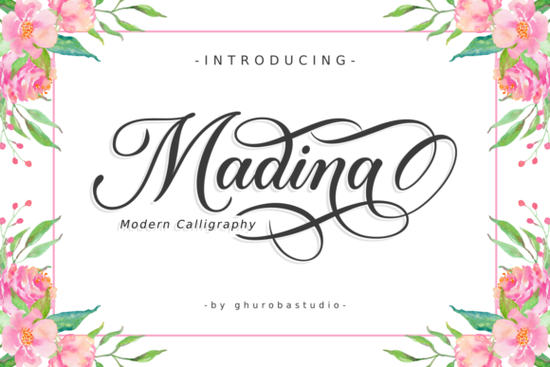
Finding the right typography for a delicate project can take hours of scrolling through endless options. When you need something that feels both magical and elegant without looking messy or illegible, the Madina Font is a highly reliable choice for your creative toolkit. It offers a beautiful handwritten touch that works perfectly for crafters, print-on-demand sellers, and small business owners looking to add a personal, authentic feel to their physical and digital products.
What makes a script font work for wedding and event stationery?
Wedding invitations, save-the-dates, and thank you cards require a delicate visual balance. The text needs to look formal but still feel warm and inviting to the guests. This typeface achieves that specific mood with a varying baseline and smooth, flowing lines. Instead of rigid, perfectly aligned letters, the slight dips and rises mimic real, careful handwriting. If you are designing a complete bridal suite and want to explore similar romantic styles, you might also enjoy browsing through other elegant script options to see what fits your specific mood board. The gorgeous glyphs ensure that even long names and detailed venue information remain highly legible, whether you are printing on thick cotton paper or using metallic foil stamping.
How do you access special swashes and alternates in design software?
One of the biggest frustrations for creative hobbyists is buying a beautiful typeface only to realize they cannot easily access the extra flourishes. Fortunately, this font is PUA encoded. This means you can easily reach all the alternate characters and swashes directly from your standard character map, even if you are using basic, free software like Cricut Design Space or Silhouette Studio. You do not need expensive professional design programs to make the most of the stunning alternates. For those who prefer a slightly more casual, everyday handwriting vibe for their DIY crafting projects, taking a look at some relaxed handwriting styles can give you a good point of comparison when planning your next project.
Which projects benefit most from a handwritten touch?
Beyond wedding suites, this typeface is highly versatile for merchandise and branding. Here are a few practical ways you can use it in your business:
- Apparel and Totes: Short, inspiring quotes look fantastic on canvas bags and boutique t-shirts, giving them a high-end, custom feel.
- Business Branding: Use the beautiful alternates to create a custom, approachable logo for a bakery, florist, or photography studio.
- Greeting Cards: Add a personal, handwritten feel to holiday cards, birthday messages, and product packaging inserts.
If you are designing merchandise for a younger or more playful demographic, you might want to mix things up by checking out some fun, bubbly alternatives for your secondary text. Pairing a delicate script with a clean sans-serif or a quirky display face often yields the best visual results for retail products.
How do you pair this style with other typography?
Good design relies heavily on contrast. Because this script has so much personality and intricate detail, it pairs best with very simple, minimal fonts for the supporting text. Let the script do the heavy lifting for headers, names, and short phrases, while using a basic serif or sans-serif for the longer body copy. If you need a highly legible, modern companion font for your body text, looking into some clean, modern pairings can help round out your overall layout. You can also experiment with different floral-inspired styles if your project requires a more botanical, organic aesthetic alongside your main lettering.